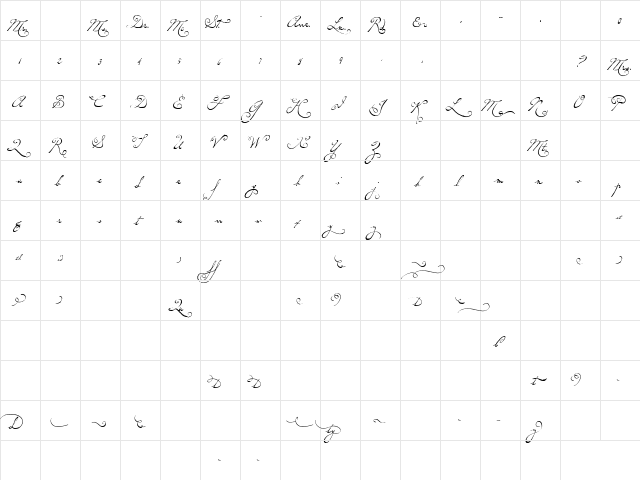
P22DearestSwash Regular
Design Context for P22DearestSwash Typeface
P22DearestSwash brings a calligraphic fluidity to the page — its connecting strokes and expressive curves give it an unmistakably human quality.
Font Pairing: Combine P22DearestSwash with a simple geometric sans for maximum contrast — the tension between flowing curves and clean structure is a classic typographic pairing.
Pro Tip: Pair P22DearestSwash with a clean sans-serif for supporting text. The contrast between fluid script and geometric structure creates an elegant typographic hierarchy.